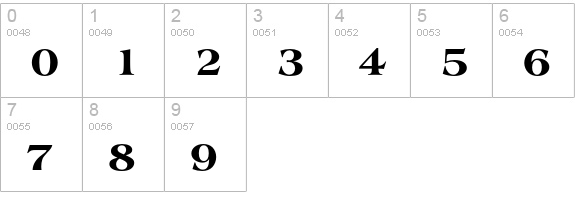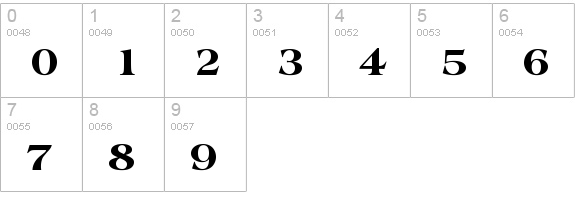
Americana T Extra Bold Font Details
Americana T Extra Bold is a strong, high-contrast variant in the Americana typeface family \xE2\x80\x94 well suited to headlines, attention-grabbing titles, and strong calls-to-action.
Americana T Extra Bold is a striking and robust font that exudes power and confidence. With its bold and sharp design, Americana T Extra Bold is perfect for headlines, posters, and any design project that requires a strong impact. The thick strokes and clean lines of this font make it highly legible and eye-catching. What sets Americana T Extra Bold apart is not only its impressive aesthetics but also the fact that it is available for free download at FontsMarket.com. This means that you can easily access this powerful font and incorporate it into your designs without any hassle. Whether you're a professional designer or a hobbyist looking for a bold and impactful font, Americana T Extra Bold is the perfect choice. Download it now and elevate your designs with this timeless and versatile typeface.